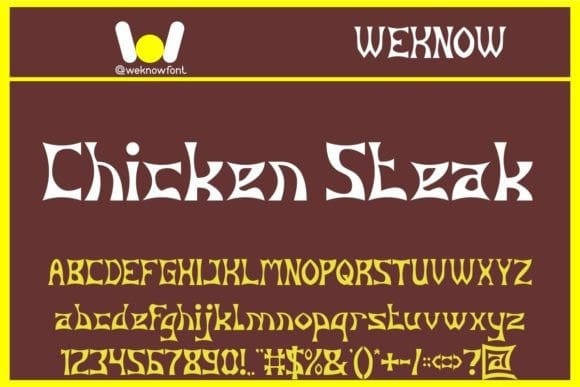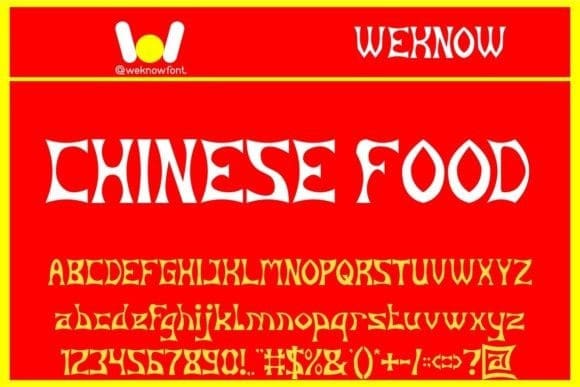
Chinese Food Font
Chinese Food Font is a cool and unique display font. Its original look is perfect for headlines, restaurant menus, labels, stickers, product packaging, stickers, or anything that requires a fun and youthful touch.